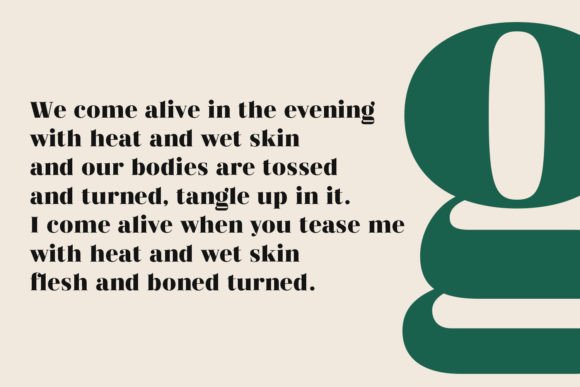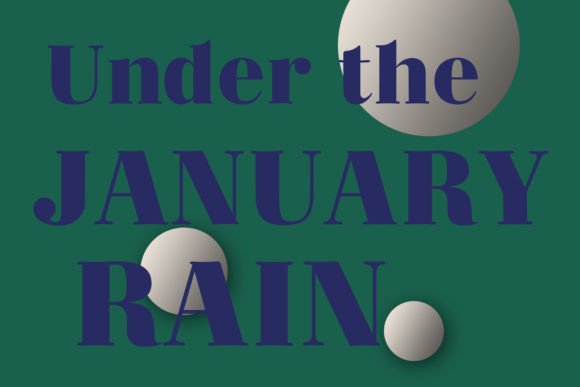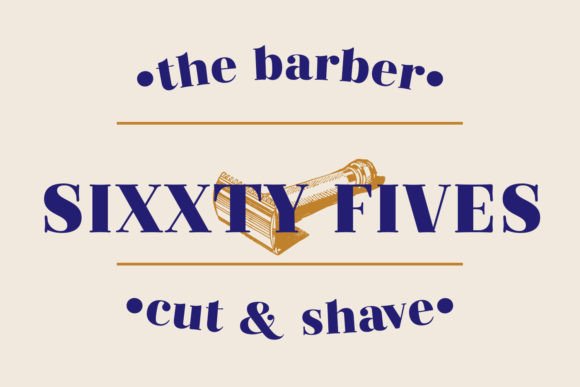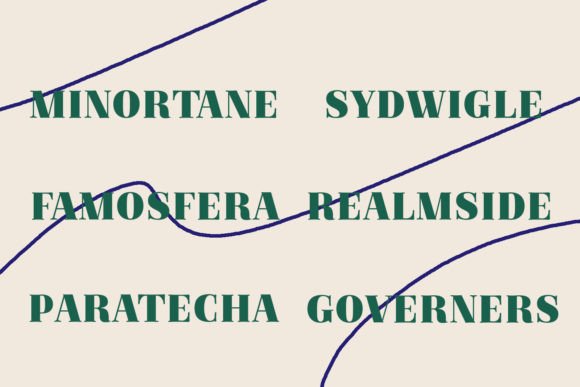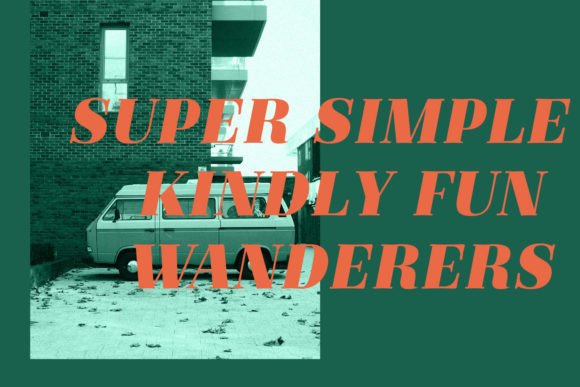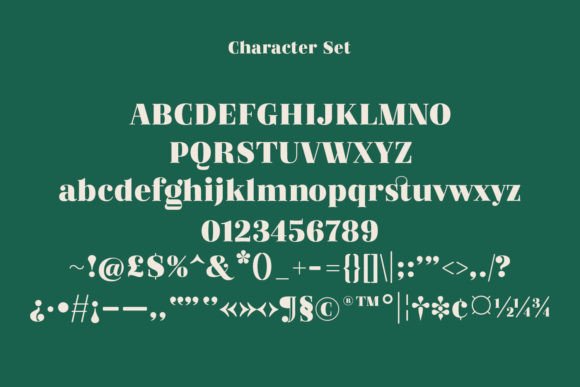
Introduction to Kalgista Font
Have you ever stared at a blank page, waiting for the perfect font to spark your creative project? It’s a feeling we’ve all been there – the anticipation, the excitement, and the pressure to bring our ideas to life. For designers, finding the right font can make all the difference in elevating our work and leaving a lasting impression.
That’s where the Kalgista Font comes in – a modern, condensed concave serif display font that’s perfect for logo design, social media, movie titles, and more. With its sleek, high-quality design, this font is a valuable resource for designers looking to add a touch of sophistication and style to their work.
Key Features of Kalgista Font
- Unique, modern design with a transparent background, making it perfect for digital use.
- Includes a comprehensive character set, covering Latin, Cyrillic, and Greek alphabets.
Honest Review: Kalgista Font
- What works well: ✨ The Kalgista Font has a unique and modern aesthetic that can easily be customized to fit any design style. Its transparent background makes it easy to work with and combine with other design elements.
- What works well: ✨ The font is also highly versatile, suitable for both personal and professional projects, making it a valuable design resource.
One of the limitations of the Kalgista Font is that it’s a relatively new design, so it may not have the same level of polish as some other high-quality fonts on the market. ⚠️
Overall, I’m impressed with the Kalgista Font and would highly recommend it to anyone looking for a modern, free font for their next creative project. Its transparent background and high level of customization make it a standout design resource.
Tips for Getting the Most Out of Kalgista Font
For the best results, use Kalgista Font in conjunction with a transparent background to create a high-quality design resource. Experiment with different font sizes and colors to add visual interest to your project. This font is particularly useful for creative projects that require a unique and eye-catching design.
Kalgista Font is commonly used in design projects that require a creative and modern look. It’s ideal for logos, branding materials, and marketing campaigns. With its high-quality design and transparent background, this font is a valuable design resource for anyone working on a creative project.
Compared to Kalgista Font, Alex Brush Font has a more rustic and organic feel, making it suitable for projects that require a more earthy and natural look.